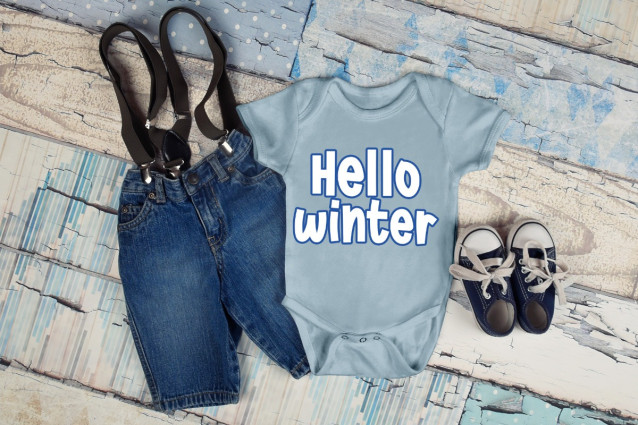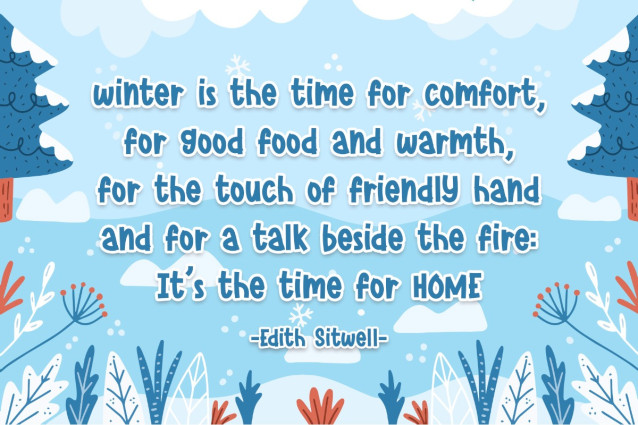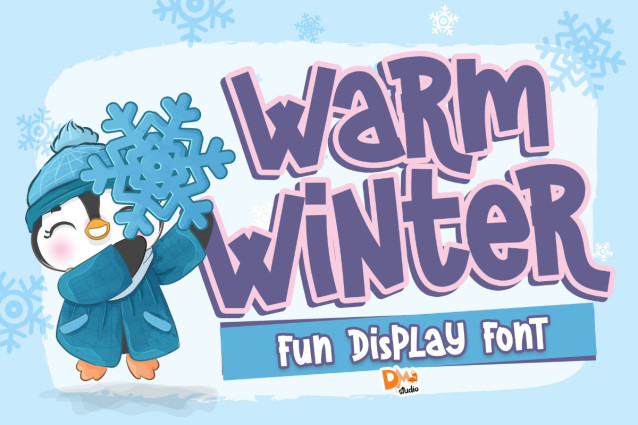
Warm Winter Font
Warm Winter Font. This typeface is designed to infuse your designs with a warm, inviting, and seasonal feel. Ideal for holiday cards, winter-themed branding, and festive projects, the Warm Winter Font brings a touch of comfort to your typography.